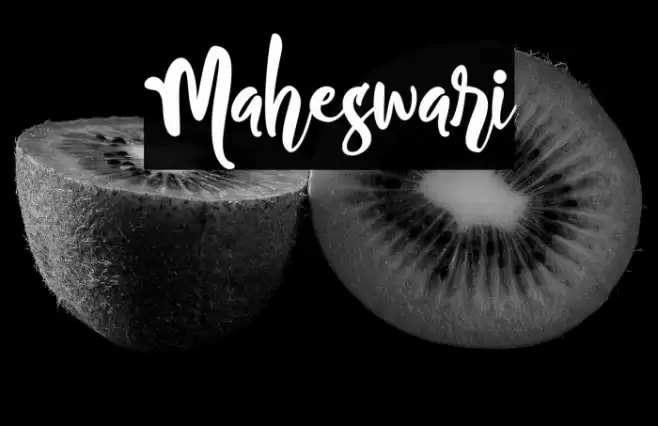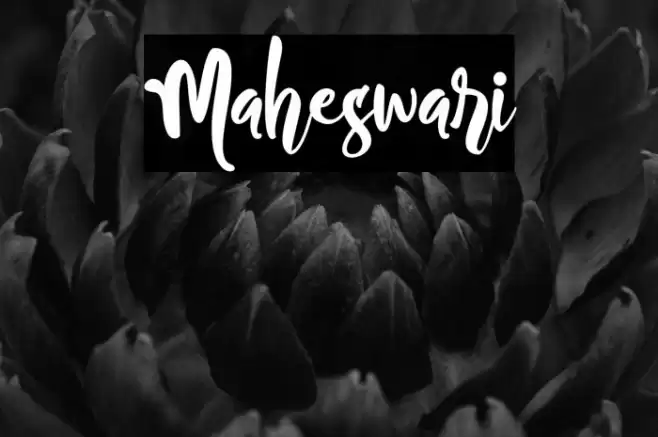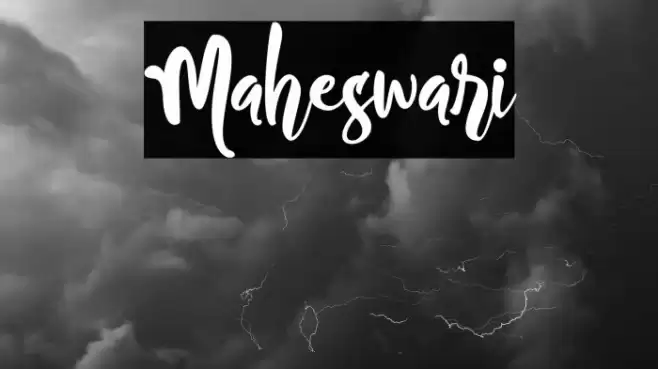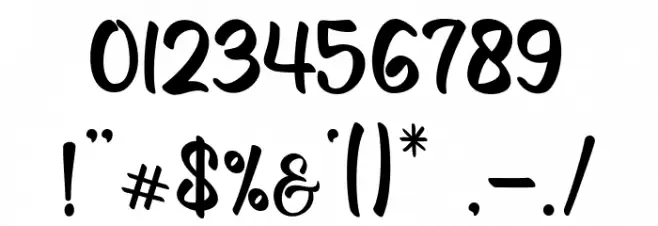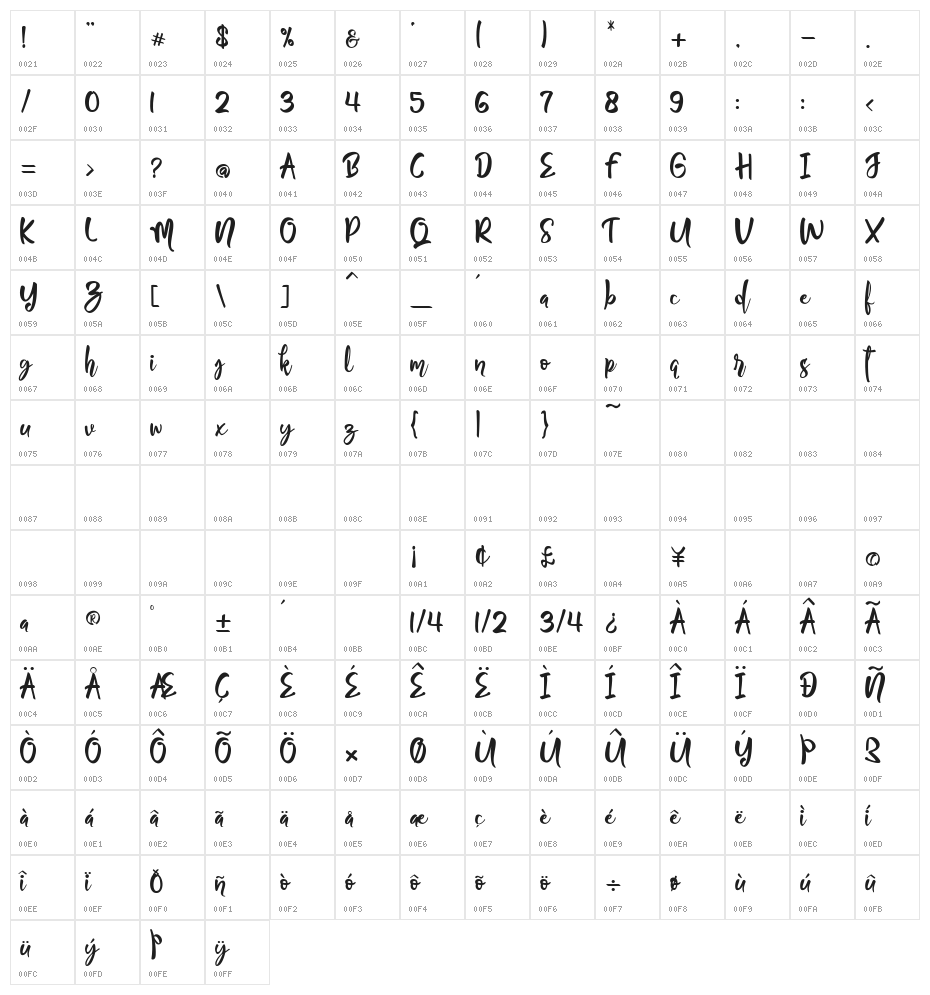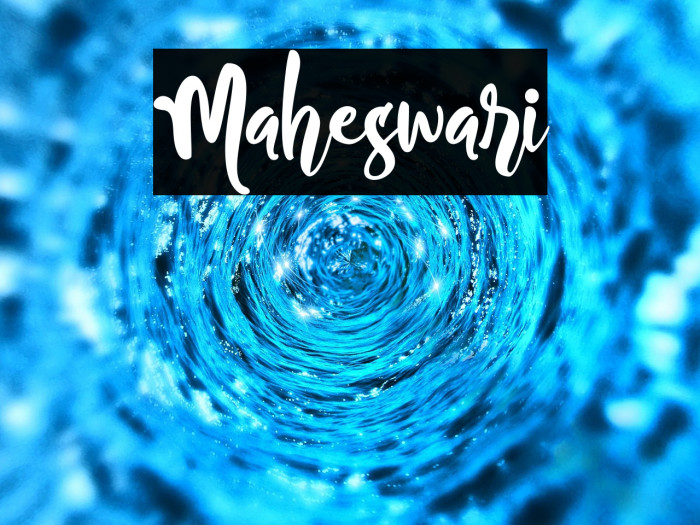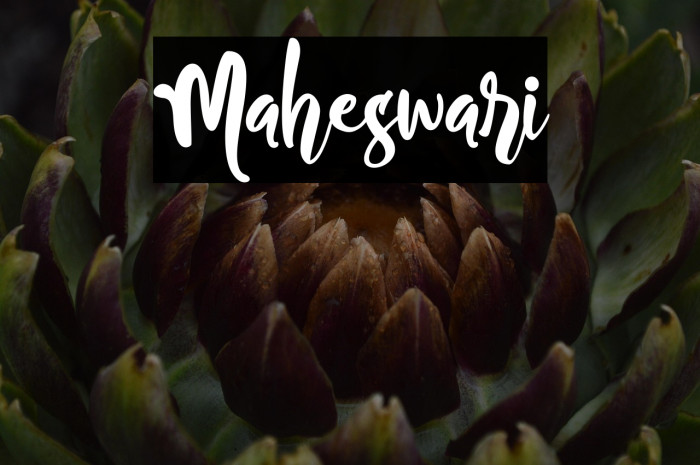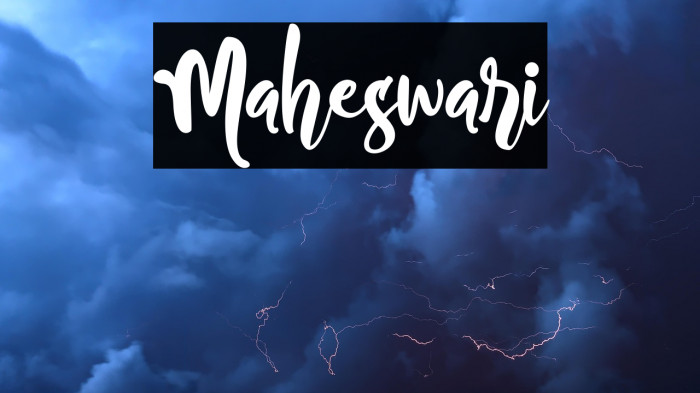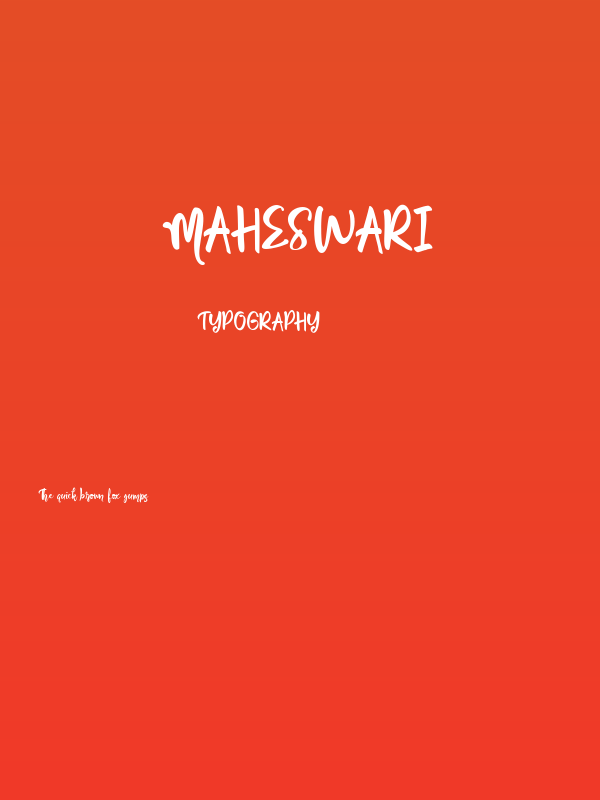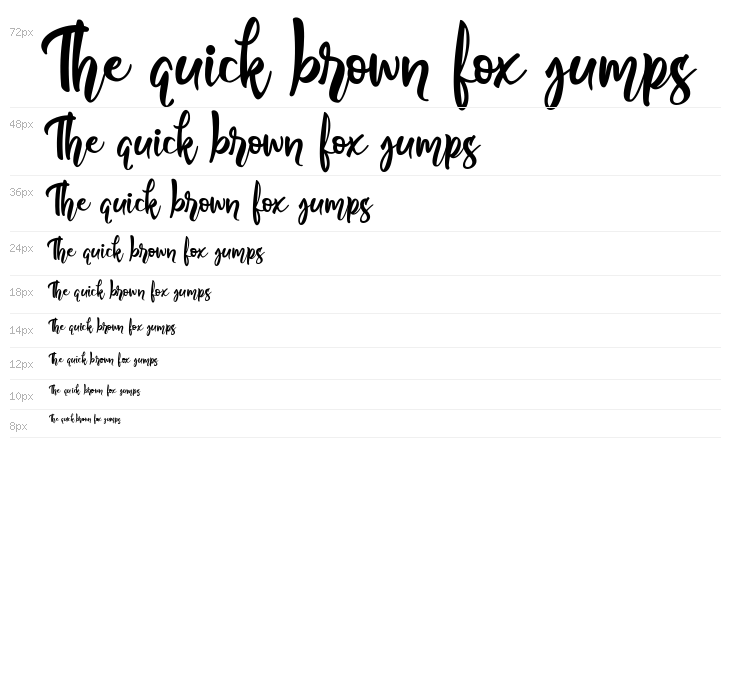
Maheswari Font
Maheswari Description
This font features a bold and expressive handwritten style, characterized by its fluid and dynamic strokes. The uppercase letters are particularly striking, with a playful yet elegant flair that captures attention. The lowercase letters maintain a consistent flow, enhancing readability while retaining a personal touch. Numbers and special characters are crafted with the same artistic energy, making them suitable for creative projects. The overall design is modern and vibrant, perfect for adding a personal and artistic feel to any text.
A bold, expressive handwritten font with fluid strokes and artistic flair from Regular fonts.
- Proposed Projects: Ideal for branding, invitations, greeting cards, and social media graphics.
- Use Case: Logos, Headlines, Invitations